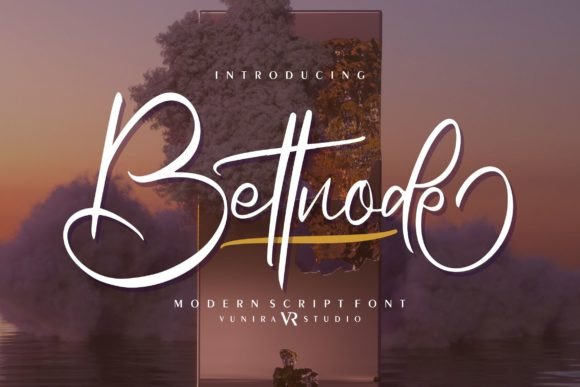
The Designer’s Delight: Uncovering the Beauty of Bettnode Font
I’ll never forget the time I was working on a wedding invitation project, and my client asked for a font that was both elegant and modern. I scoured the internet, tried out countless fonts, but nothing seemed quite right. That was until I stumbled upon Bettnode Font. This stunning script font with a calligraphy style instantly captured my attention, and I knew I had found the perfect fit. In this article, I’ll share my experience with Bettnode Font, its features, and how to make the most of it in your designs.
A First Impression: What I Love About Bettnode Font
Bettnode Font is a true gem, and here’s what I love about it:
- ✨ Elegant and modern calligraphy style that’s perfect for invitations, greeting cards, and branding materials.
- ✅ Highly legible, even at smaller font sizes.
- 💫 Beautifully crafted letters with a personal touch, making each word feel special.
- 🎨 Versatile and can be used for a wide range of design projects, from posters to quotes.
A Few Quirks to Keep in Mind
While Bettnode Font is an excellent choice, there are a few things to keep in mind:
- 🤔 Some letters may require manual kerning for optimal spacing.
- ⚠️ Limited availability of certain characters, such as ligatures.
The Story Behind Bettnode Font
Bettnode Font was created with the intention of capturing the essence of modern calligraphy. The designer aimed to create a font that was both elegant and approachable, perfect for a wide range of design projects. While the exact story behind the font’s creation is unclear, it’s evident that Bettnode Font was crafted with love and attention to detail.
| What type of projects is Bettnode Font best suited for? | Bettnode Font is perfect for invitations, greeting cards, branding materials, business cards, quotes, posters, and more! |
| Is Bettnode Font easy to read? | Yes, Bettnode Font is highly legible, even at smaller font sizes. |
| Does Bettnode Font support OpenType features? | Yes, Bettnode Font supports OpenType features, such as stylistic alternates, glyphs, and ligatures. |